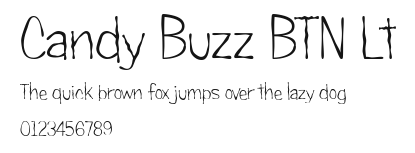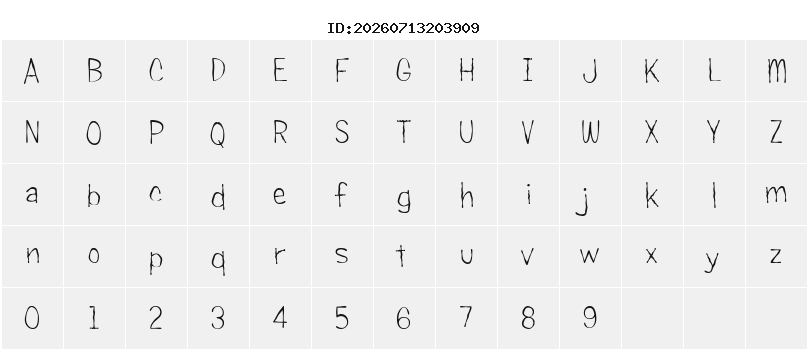
• Font Name: Candy Buzz BTN Lt
• Font ID: Candy Buzz BTN Lt
• Full Font Name: Candy Buzz BTN Lt
• PostScript Name: CandyBuzzBTNLt
• Character Count: 264
About Candy Buzz BTN Lt.ttf
Candy Buzz BTN Lt.ttf is a modern, elegant sans-serif font designed for ultimate readability and visual harmony. Perfect for branding, headlines, web design, and print materials.